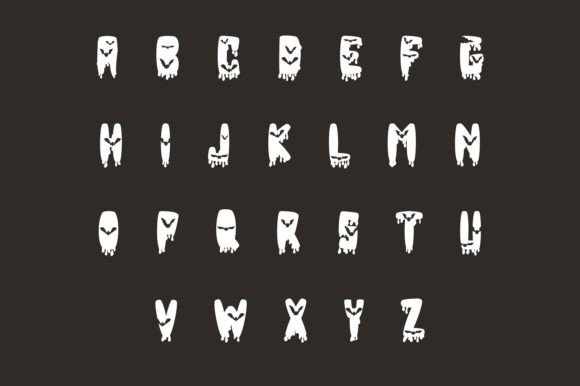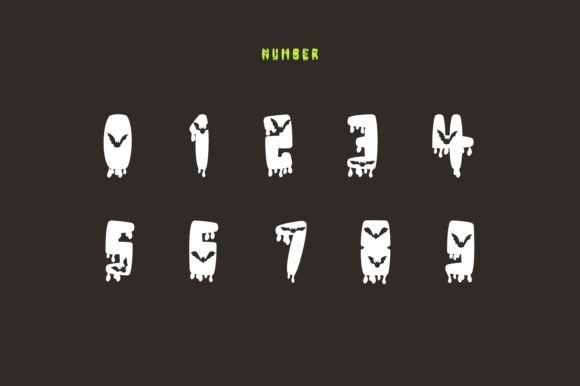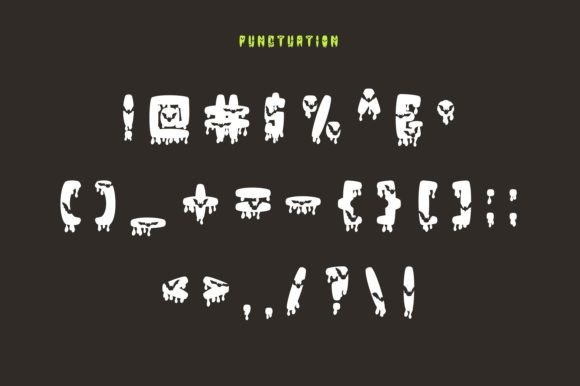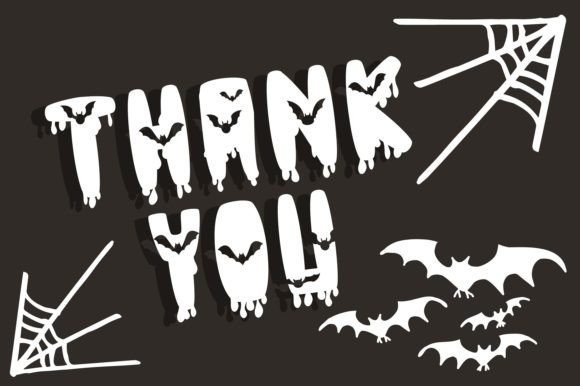
The Perfect Font for a Spooky Twist
Have you ever found yourself in a design rut, staring at a blank page with no inspiration in sight? It’s a frustrating feeling, but one that can often be solved with a dash of creativity and the right tools. For designers, a unique and eye-catching font can be just the thing to breathe new life into a project. And that’s exactly where the Bat Bat Font comes in – a scary and fun decorative font that’s perfect for adding a spooky twist to any design.
The Bat Bat Font is more than just a font – it’s a statement piece that embodies playfulness and authenticity. Whether you’re working on a Halloween-themed project or simply want to add a touch of whimsy to your designs, this font is sure to deliver. With its versatility and wide range of applications, it’s a valuable addition to any designer’s toolkit.
Bat Bat Font Key Features
- Unique Characteristics: The font features a unique blend of modern and vintage elements, with bold lines and geometric shapes that give it a distinctive look.
Designer Review: Bat Bat Font
Overall, I’d say Bat Bat Font is an interesting addition to any design project. ✨ One of its strongest features is its quirky, playful feel, making it perfect for illustrations or children’s books. The font’s irregular shapes and unique letterforms add a touch of whimsy and can really help to set a project apart.
Another great aspect of Bat Bat Font is its high-quality design. The font is well-crafted and displays consistently across various sizes and resolutions. This makes it easy to work with and ensures that your designs will look professional and polished.
- ⚠️ Limited character set: While the font includes a good range of letters and symbols, it may not be suitable for projects that require a broad character set, such as body text in a long-form article.
- ⚠️ Not ideal for small text: Due to its quirky design, Bat Bat Font may not be the best choice for small text sizes, as the irregular shapes can become difficult to read.
Overall, I’d recommend Bat Bat Font for projects that require a unique, playful touch. While it may not be suitable for every design task, it’s a great choice for illustrations, branding, or any project where you want to add a bit of personality and flair.
Getting the Most Out of “Bat Bat Font”
For optimal results, use “Bat Bat Font” for bold and eye-catching headings, and pair it with simpler fonts for body text. Experiment with different font sizes and styles to create a unique visual identity.
“Bat Bat Font” is ideal for creative projects, such as graphic design, digital art, and typography-based designs. It’s also great for creating custom logos, titles, and headings that stand out from the crowd.